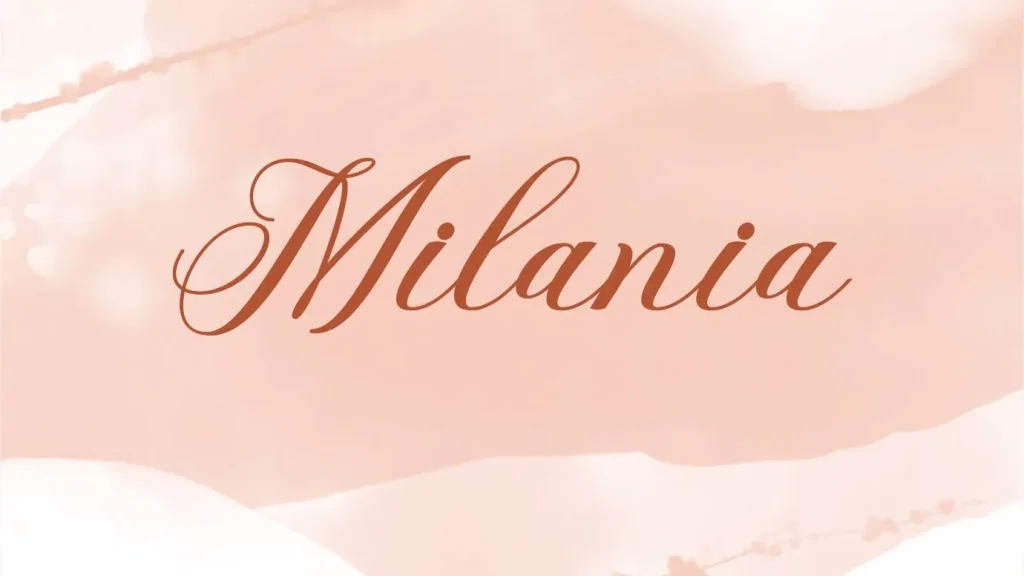
The Milania Font is a Script design that comprises the extraordinary symbols that you need to create your project. A font style comprises all character sets, specific characters, regular punctuation, alternate styles, numbers, and more.
It has an amazing textured pattern that looks wonderful on each kind of design. Many languages are supported, starting and ending letters are included, and alternative letters can be used.
Is Milania typeface have great readability?
This typeface has fantastic implications it may be a tremendously adaptable textual style that can be operated for several purposes.
Is Milania Font easy to use?
Milania font style is very easy to use this font is especially suitable for branding, headlines, and invites.